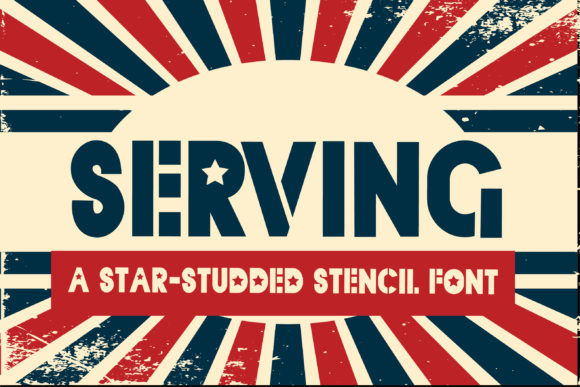
Welcome to the enthralling world of Serving Font, a striking uppercase display font that captures hearts with its stenciled charm and captivating star accents. Enter a realm of design possibilities where every word becomes a statement of style and individuality.
Embrace the boldness of Serving Font, for it knows no boundaries. Let your creativity shine as you effortlessly craft striking headlines, logos, posters, and web designs that leave an indelible impression. Its confident presence commands attention, enabling you to make a lasting impact, wherever your artistic journey takes you.
Born from the creative studio of Illustration Ink, Serving Font is a masterpiece of digital artistry. It captivates with its captivating spirit, inviting you to push the limits of your imagination and explore uncharted creative territories. Unleash your inner designer and let Serving Font be your muse, transforming your projects into visual spectacles that inspire and engage.
With Serving Font, the possibilities are endless. Design awe-inspiring book covers that transport readers into captivating narratives, elevate your social media presence with eye-catching graphics that demand attention, or create stunning invitations and greeting cards that leave a lasting impression. Let your creativity flourish as you discover the boundless potential of this remarkable font.
Serving Font is more than just a font; it is a gateway to a world of creative expression. Its bold presence and playful demeanor make it the perfect choice for those who seek to make a statement, to stand out from the crowd. Whether you're a seasoned designer or just starting your creative journey, Serving Font is your ally, empowering you to unleash your imagination and paint the world with your unique style.